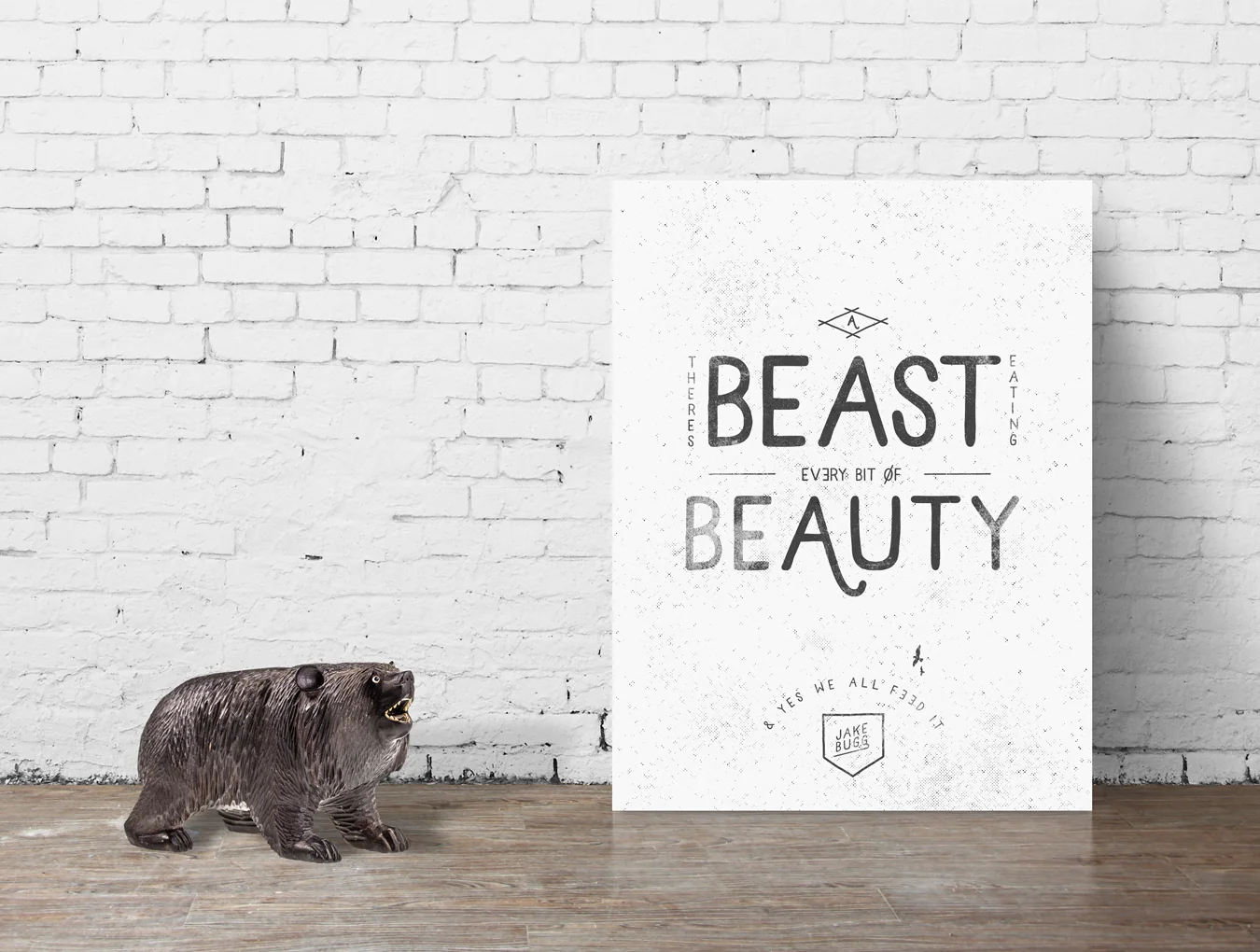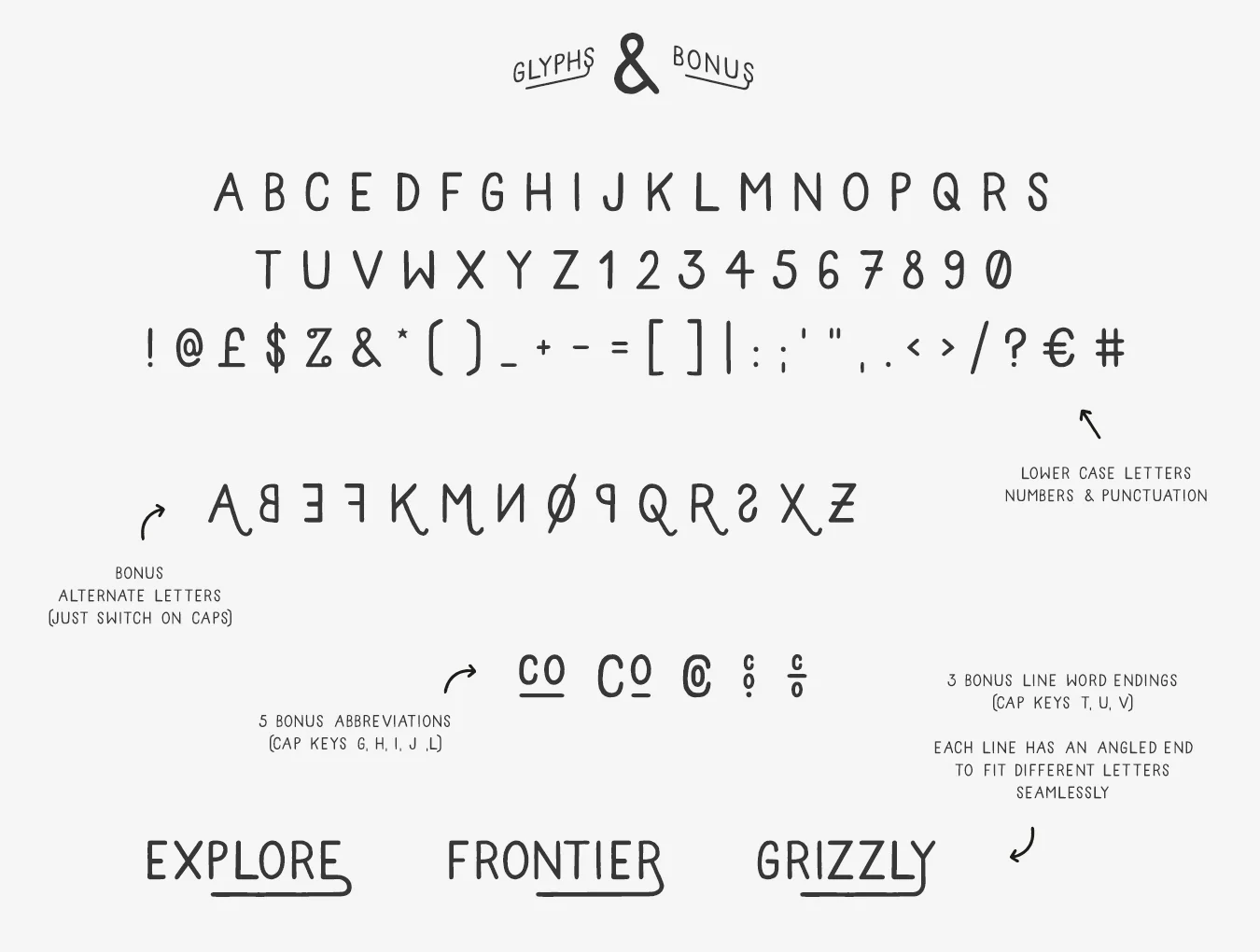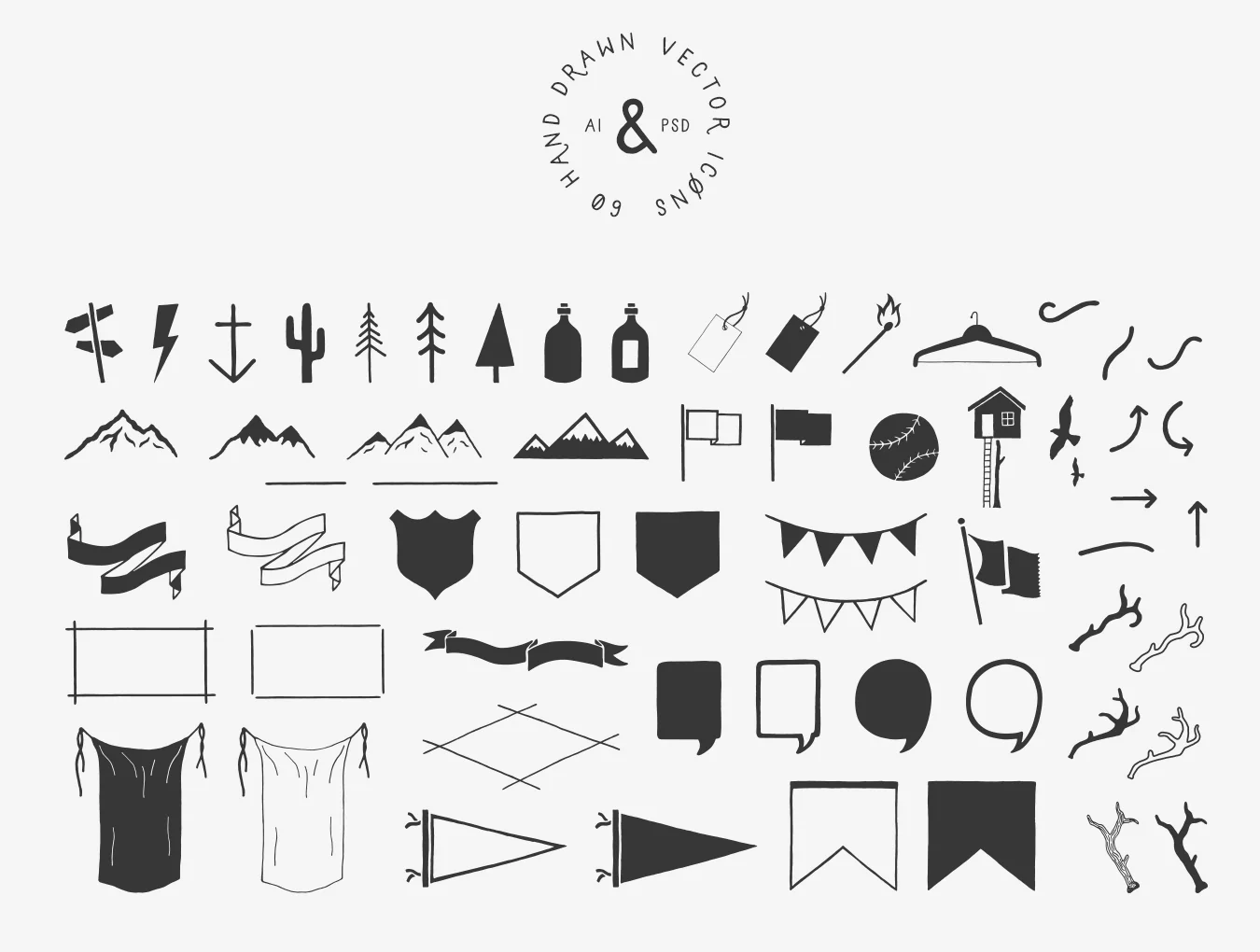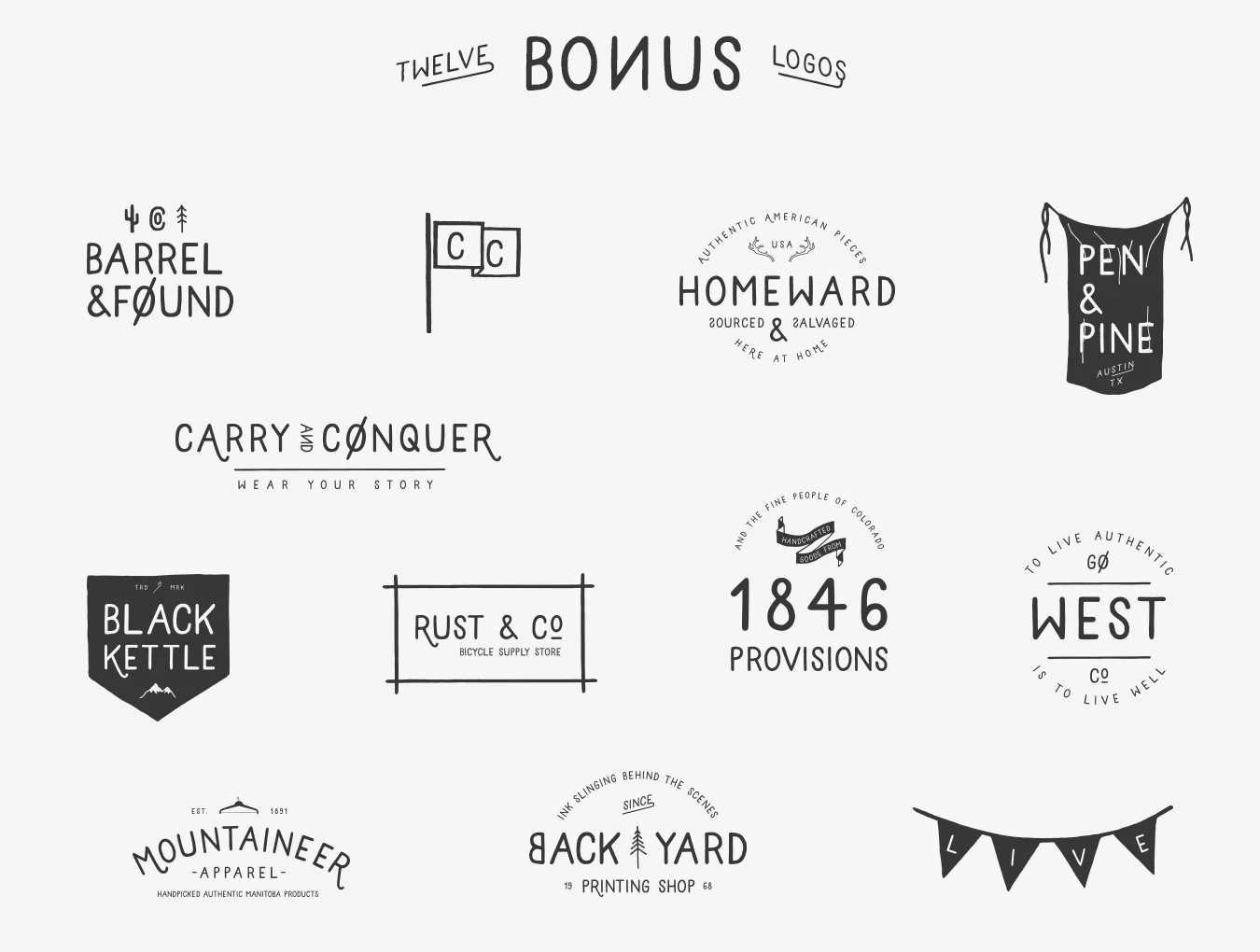
Grayling
Stylish flexible contemporary typeface
14 optional character variants
5 extra business abbreviations
12 fully customizable logo layouts
A stylish hand-sketched typeface by Design Surplus, loaded with options that highlight its flexibility. Created as a clean modern font, it includes alternate characters, business abbreviations, and decorative line elements, letting you keep designs subtle and refined or make them bold and unconventional.